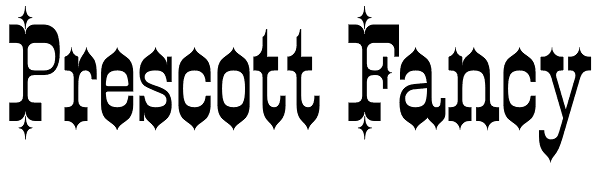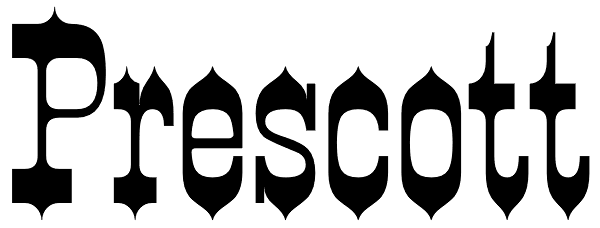
Prescott
The three fonts in the Prescott series are re-creations of 19th century favorites with an Old West flavor. The town of Prescott was the capital of Arizona Territory from 1864 until 1912, when Arizona was admitted to the Union, and the capital moved...
Prescott Fancy
Prescott Plain
Prescott